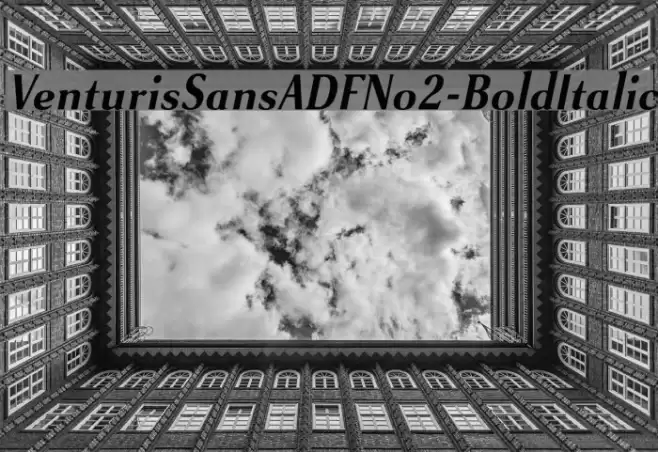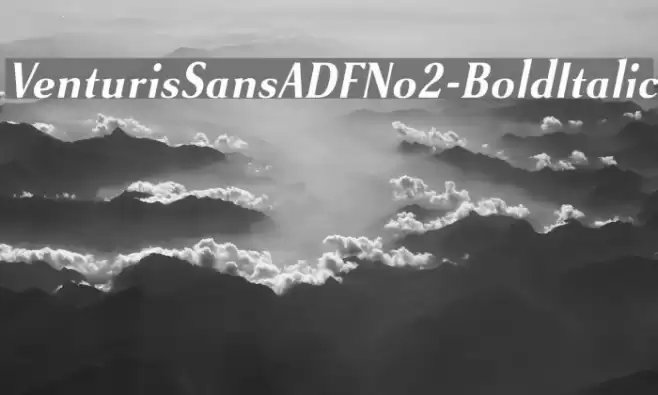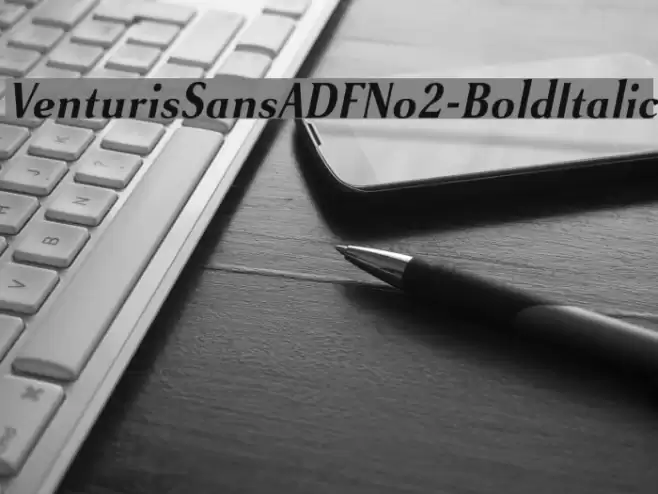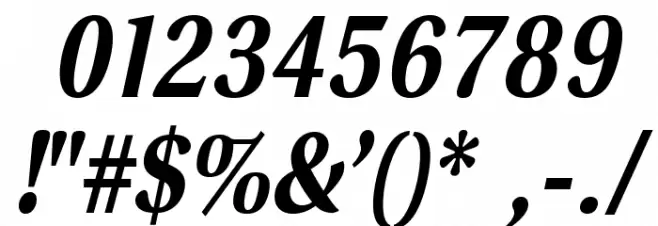
VenturisSansADFNo2-BoldItalic Font
VenturisSansADFNo2-BoldItalic Description
This font exhibits a bold and italicized style, characterized by its elegant and dynamic appearance. The letters have a slight slant, giving them a sense of movement and sophistication. The strokes are thick and consistent, providing a strong visual impact. The serifs are pronounced, adding a classic touch to the overall modern design. The numerals and special characters maintain the same bold and italicized features, ensuring uniformity across all elements. This font is suitable for creating a striking and professional look.
A bold, italicized serif font with a dynamic and elegant appearance from Uncategorized fonts.
- Proposed Projects: Ideal for branding, editorial design, book covers, and high-impact headlines.
- Use Case: Headlines, Logos, Branding